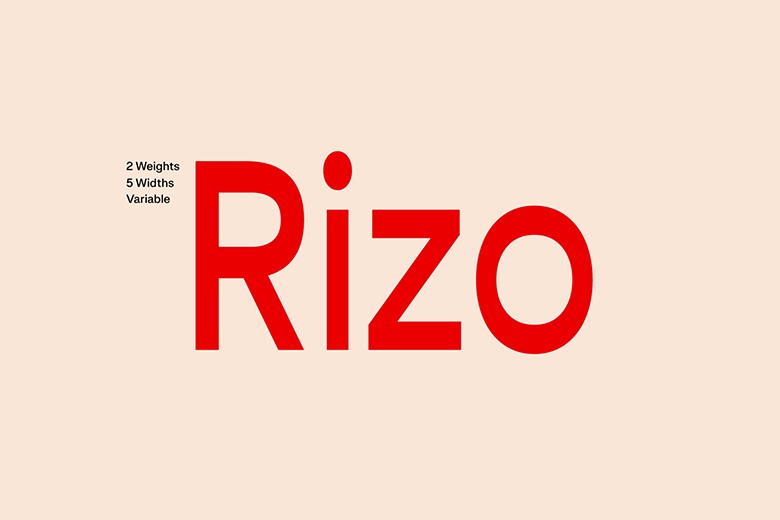
Rizo Font
The Rizo Font Family is a bold and expressive display typeface that mixes modern style with a playful feel. Its clean shapes, strong proportions, and unique letters are eye-catching but still easy to read. Rizo is a great choice for headlines, branding, packaging, editorial layouts, posters, social media graphics, and digital campaigns.
It gives designers the creativity and flexibility to create memorable visual identities for both print and digital projects. Rizo’s careful design and high-quality letters give it a fresh, energetic look, especially when used in larger sizes. Whether you are designing a modern brand, a stylish magazine, or promotional materials.
Rizo Display Font Family